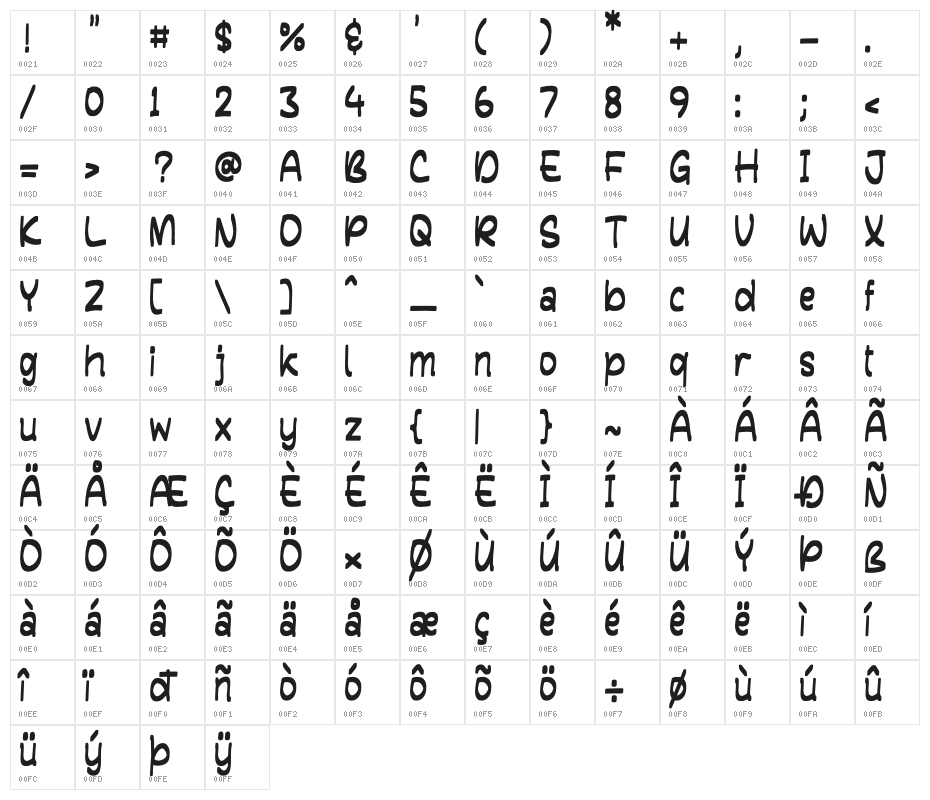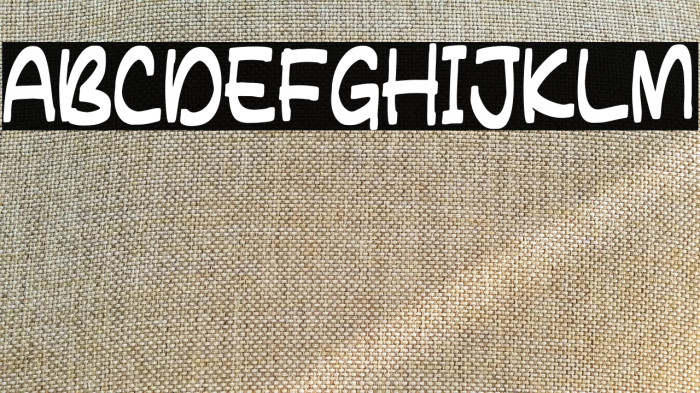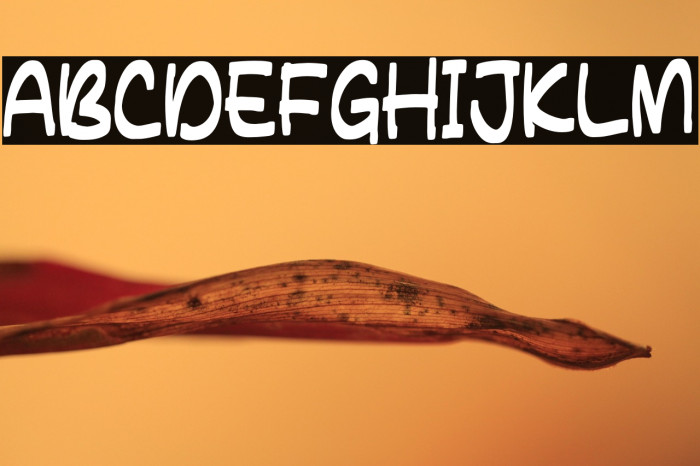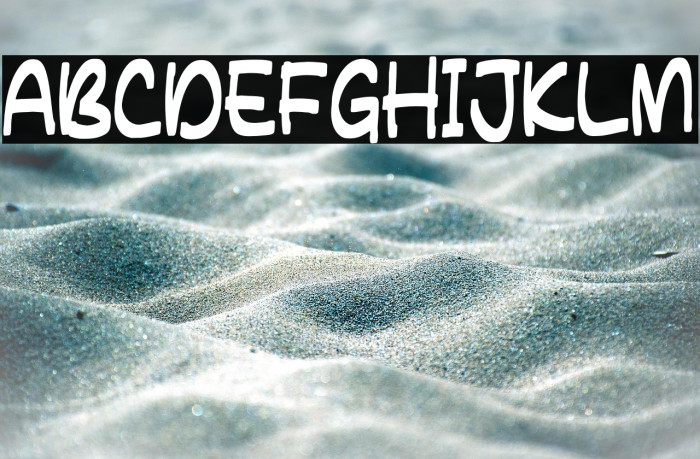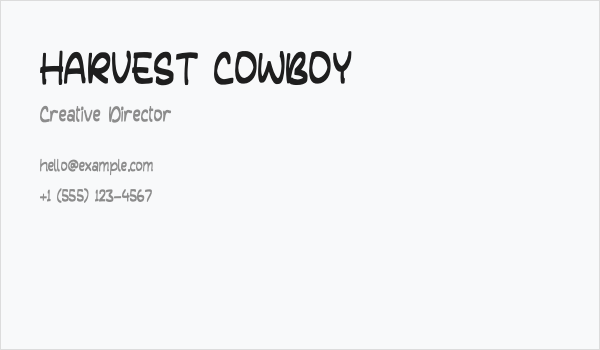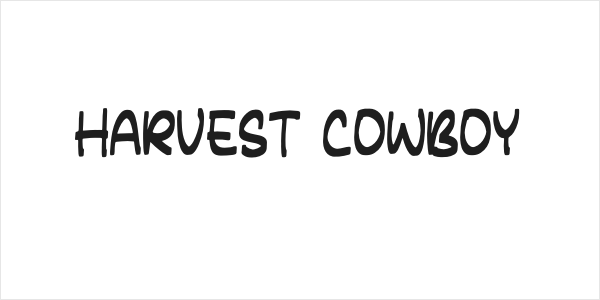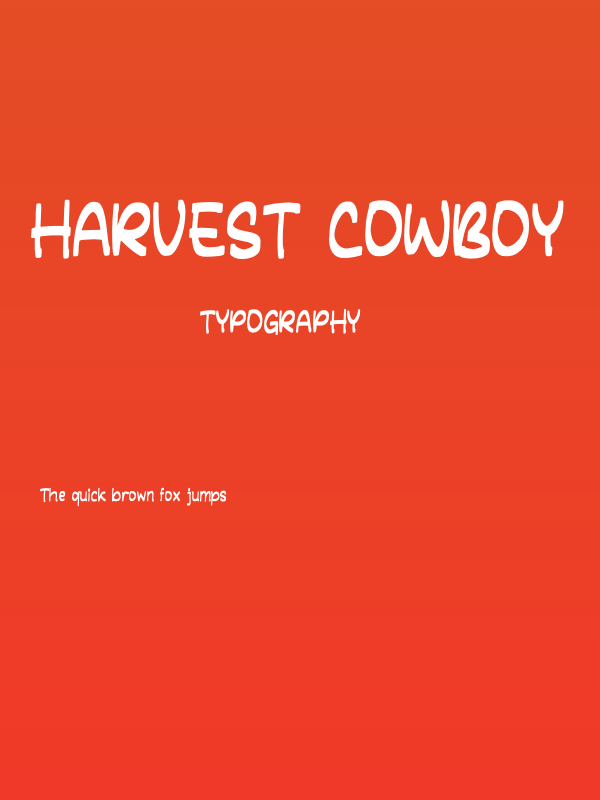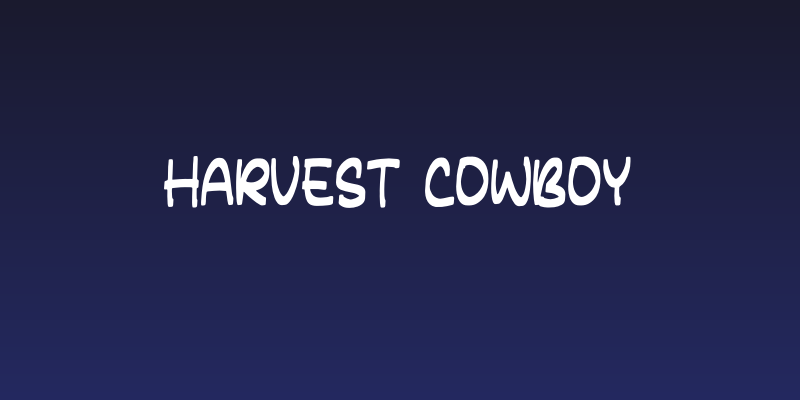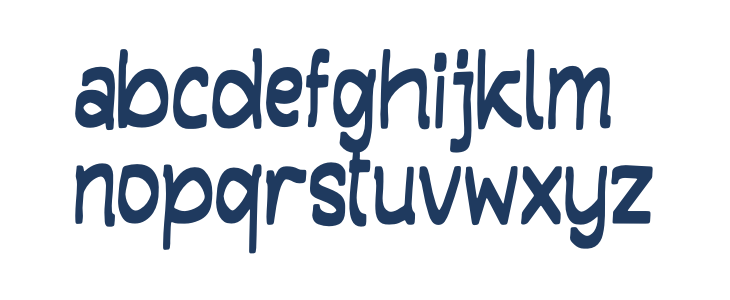
HARVEST COWBOY Font
HARVEST COWBOY Description
This font features a playful and bold handwritten style, characterized by its rounded and slightly irregular letterforms. The uppercase and lowercase letters maintain a consistent thickness, giving it a casual yet impactful appearance. The numerals and special characters follow the same design ethos, ensuring uniformity across all glyphs. Its organic, hand-drawn aesthetic makes it ideal for projects that require a personal touch. The font's unique charm lies in its ability to convey a sense of warmth and friendliness, making it suitable for creative and informal applications.
| Proposed Projects | Ideal for children's books, greeting cards, posters, and branding projects that require a personal, friendly touch. |